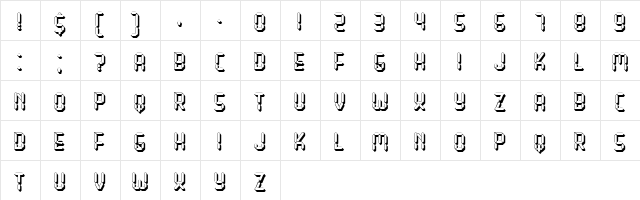
Gigabyte Hollow Regular
Design Context for Gigabyte Hollow Typeface
Gigabyte Hollow is a composed and adaptable typeface that performs quietly and consistently across a wide range of design contexts.